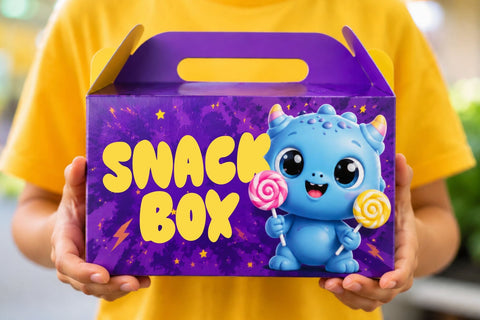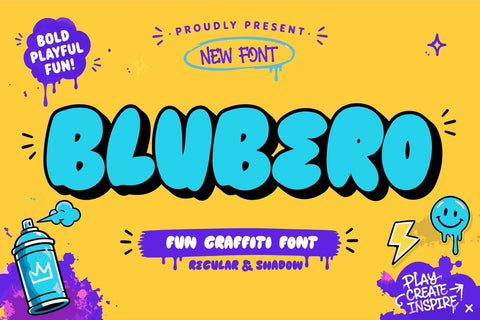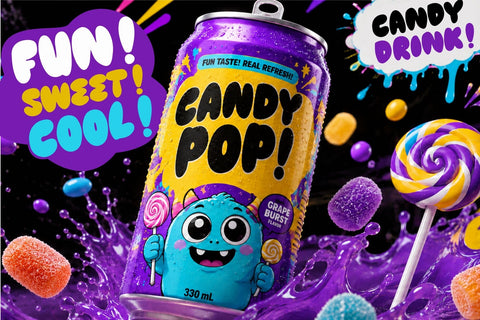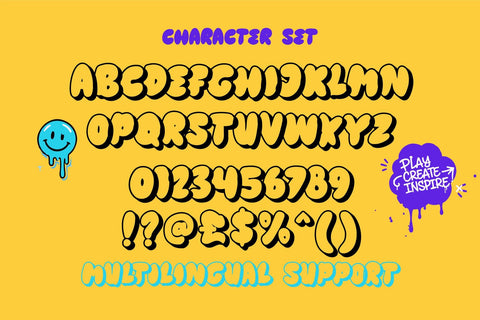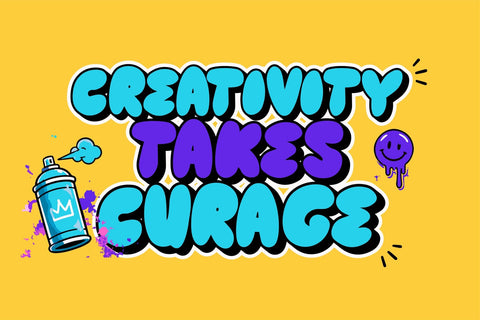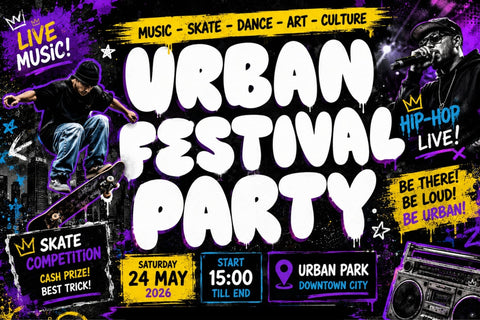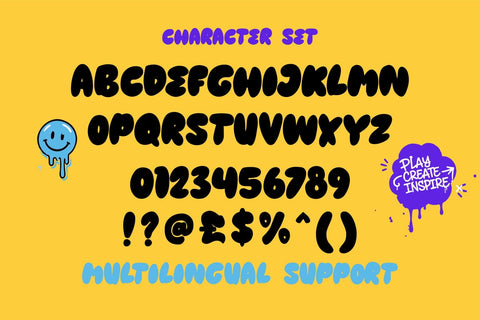
Blubero - fun 3D graffiti display Font
Blubero is a fun 3D graffiti display font created to bring playful urban energy and bold dimensional lettering into your designs. Inspired by colorful street art, bubble graffiti, cartoon lettering, and modern throw-up styles, Blubero combines chunky shapes with a strong visual presence that instantly grabs attention.
Blubero comes with two complementary styles, Regular and Shadow. The Regular style delivers bold and playful graffiti lettering, while the Shadow style adds dimensional depth and a striking layered appearance. Both styles can be used individually or combined to create eye-catching typography for logos, posters, streetwear, gaming graphics, album artwork, stickers, packaging, social media content, YouTube thumbnails, merchandise, and promotional designs.
The font includes uppercase characters, numbers, punctuation, and multilingual support, making it versatile for creative projects across different languages. Its fun and energetic appearance works especially well for youth-oriented brands, urban campaigns, children's products, music artwork, gaming projects, and colorful visual identities.
Blubero is an excellent choice when you need typography that feels bold, playful, dimensional, and full of street culture. Add vibrant colors, gradients, textures, or illustrations to create expressive compositions with a strong graffiti personality.